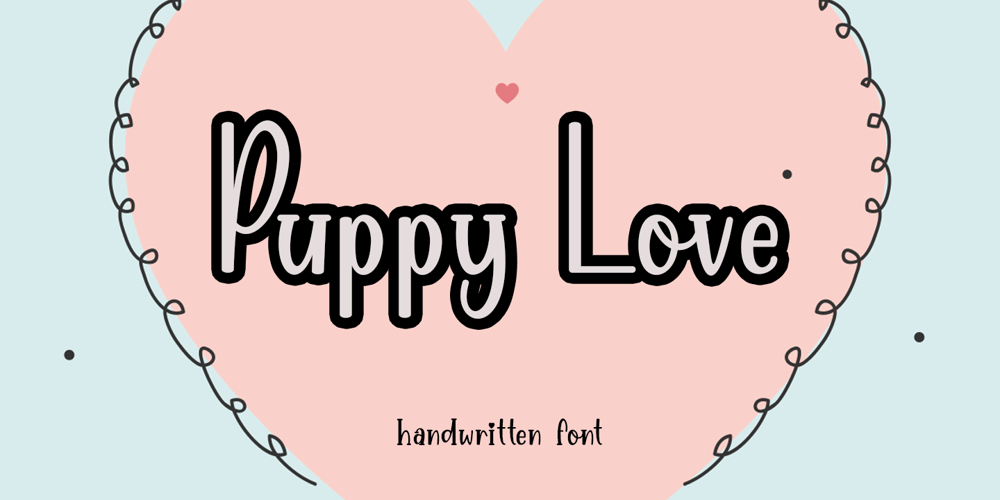
Puppy Love Font Family was designed by Arief Tri Sulistiyono and published by Supersemarletter. Puppy Love contains 1 styles and family package options. Puppy Love is a cute and playful display font. It looks wonderful on a variety of designs, both formal and informal. Whether you’re using it for crafting, digital designs, presentations or greeting cards, it’s perfect! Honestly it works perfectly for headlines, logos, posters, packaging, T-shirts and much more.Font Features :• Regular version• Character set A-Z in uppercase and lowercase• Ligatures in Lowercase and special• Alternates option• Numerals & Punctuation• Accented Characters• Multiple Languages SupportedRecommended to use in Adobe Illustrator or Adobe Photoshop with opentype feature.If you have questions, just send me a message and I’m glad to help.Best Regards,Supersemar Letter